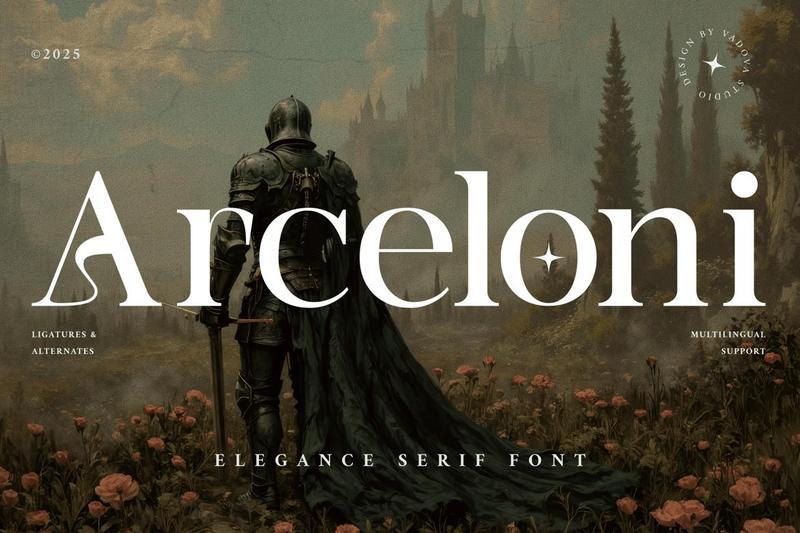
Arceloni Elegance Serif font 4E7QBHR
Arceloni is an elegant serif font inspired by medieval aesthetics and refined luxury, blending historical charm with modern sophistication. Featuring stylistic alternates, ligatures, and multilingual support, this typeface offers beautifully balanced letterforms perfect for display use. With its decorative accents and classic curves, Arceloni is ideal for projects requiring a timeless and majestic typographic voice. The font includes full uppercase and lowercase sets, numerals, punctuation, and special symbols for maximum versatility.
**Main Features**
* Uppercase & Lowercase characters
* Numeral & Punctuations
* Ligatures & Alternate
* Multilingual Support